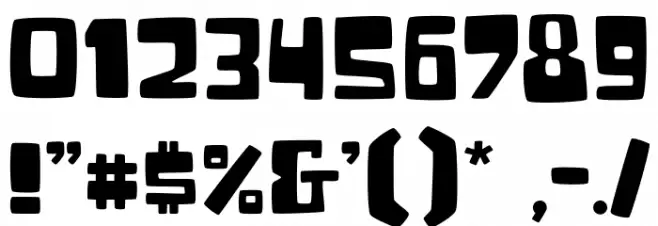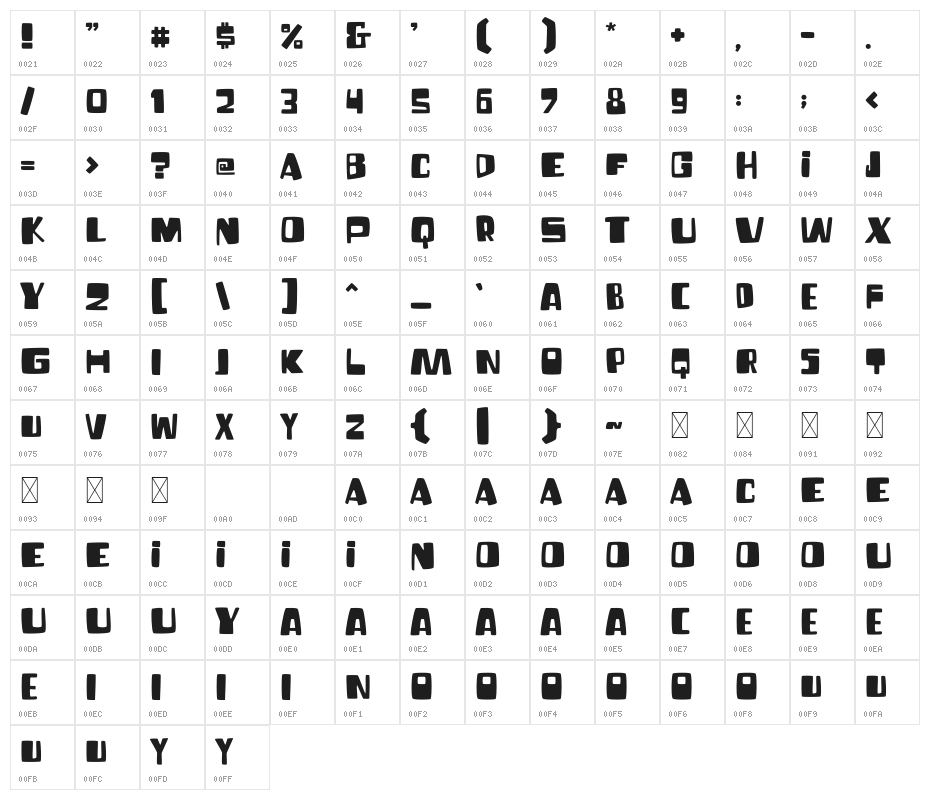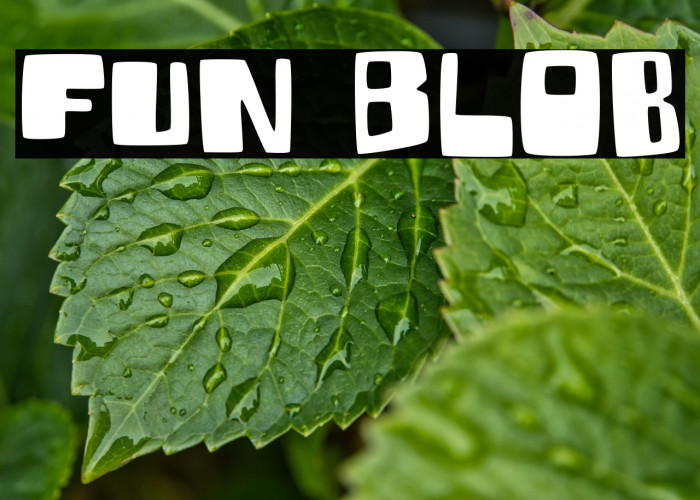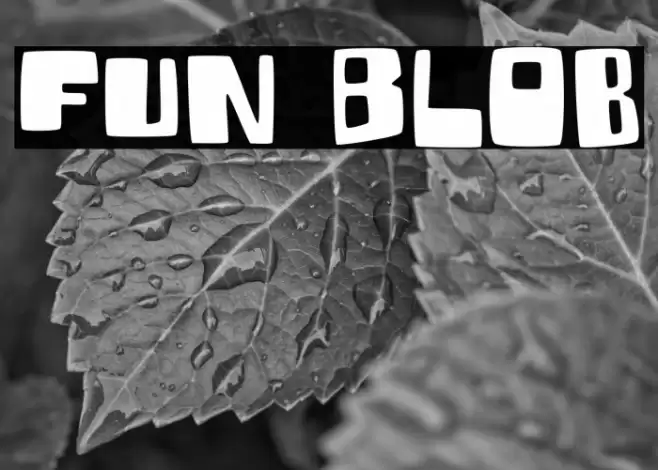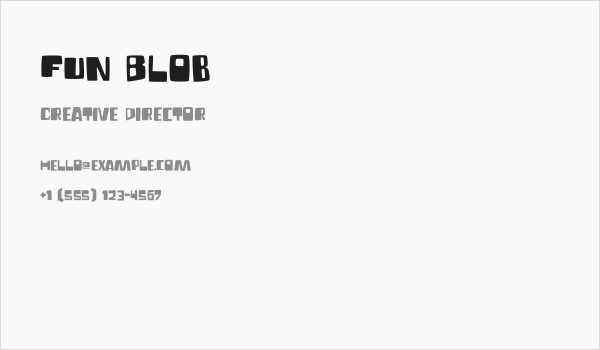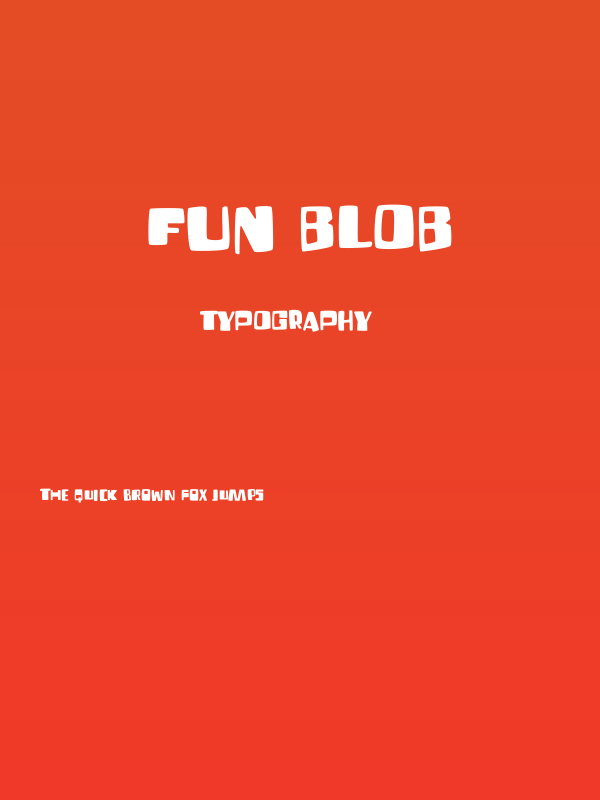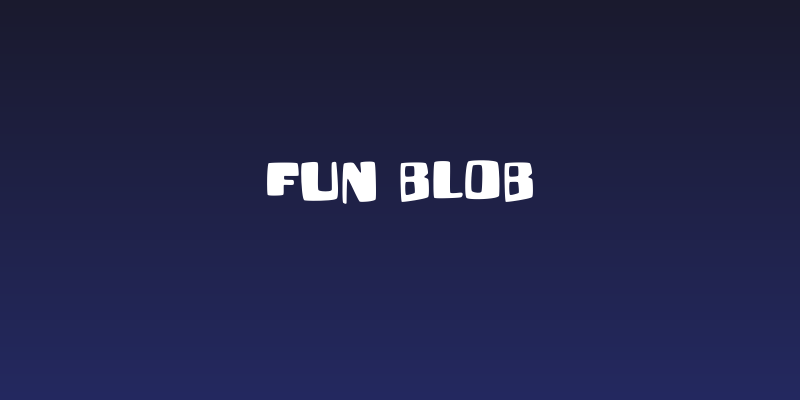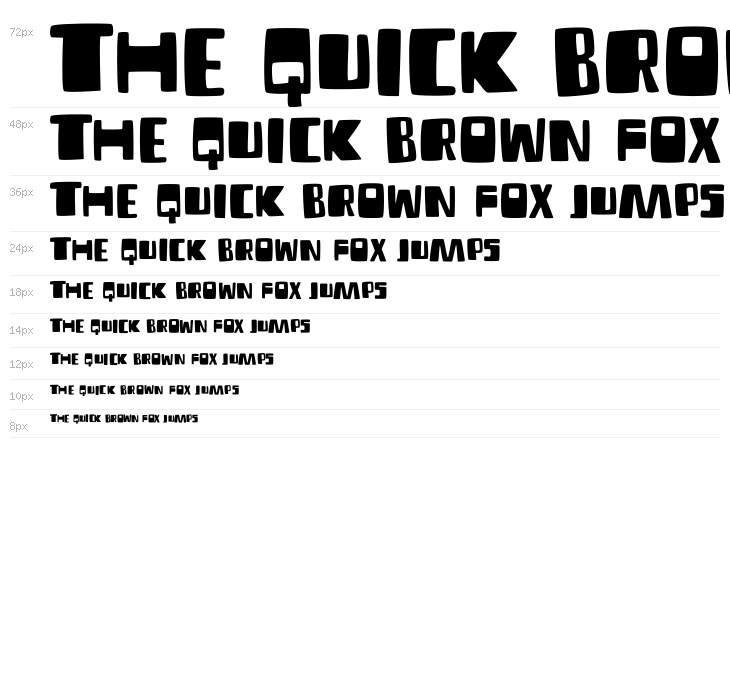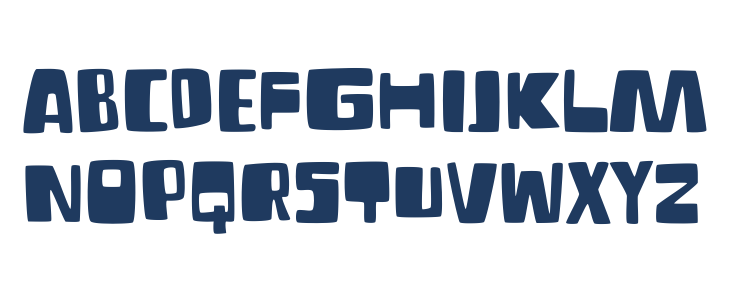
Fun Blob Font
Fun Blob Description
This playful and bold font features a chunky, irregular design that gives it a fun and whimsical appearance. The characters are rounded and uneven, with varying widths that create a lively and dynamic look. The uppercase and lowercase letters maintain a consistent style, while the numbers and special characters complement the overall theme. The font's unique, blob-like shapes make it stand out, adding a touch of creativity and humor to any project. Its boldness ensures readability while still offering a distinctive aesthetic that captures attention.